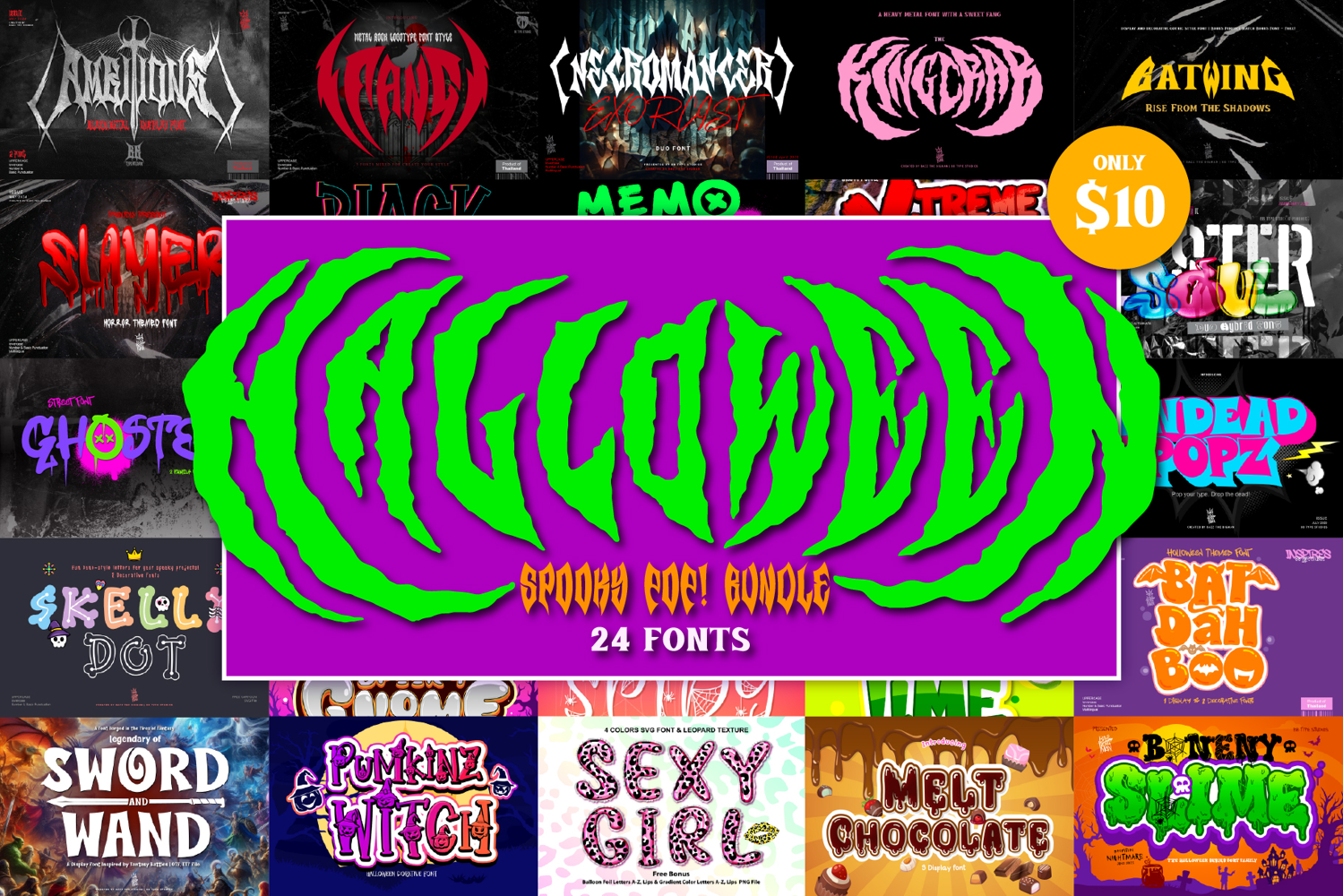
Halloween Spooky Pop! Font Bundle
Bring your Halloween designs to life with this fun, spooky, and vibrant font bundle! 🎃
From candy-cute charm to ghostly giggles — and even a splash of rock-metal flair — this wildly varied font collection is packed with energy, attitude, and Halloween spirit!
Whether you're crafting party invitations, trick-or-treat signs, product packaging, kid-friendly graphics, or edgy posters with a haunted twist, this bundle has the perfect vibe for every design.
What's Inside:
1 Ambitions
2 Bat dah boo
3 Bat Wing
4 Black Love
5 Boneny
6 Dracular
7 Extreme Xmas
8 Fang
9 Ghoster
10 Lime Soda
11 Melt Chocolate
12 Memoriam X
13 Necromancer
14 PumKinz
15 Pumkinz Witch
16 Sexy Girl (Color Font)
17 Skelly Dot
18 Slayer
19 Soul Eater
20 Spidy
21 Spooky Gnome
22 Sword and Wand
23 The King Crab
24 Undead Popz
- Halloween Crafts & Cards
- Kids & Family Party Designs
- YouTube Thumbnails & Social Media Posts
- Merch, Stickers, and Bold Rock-Themed Prints